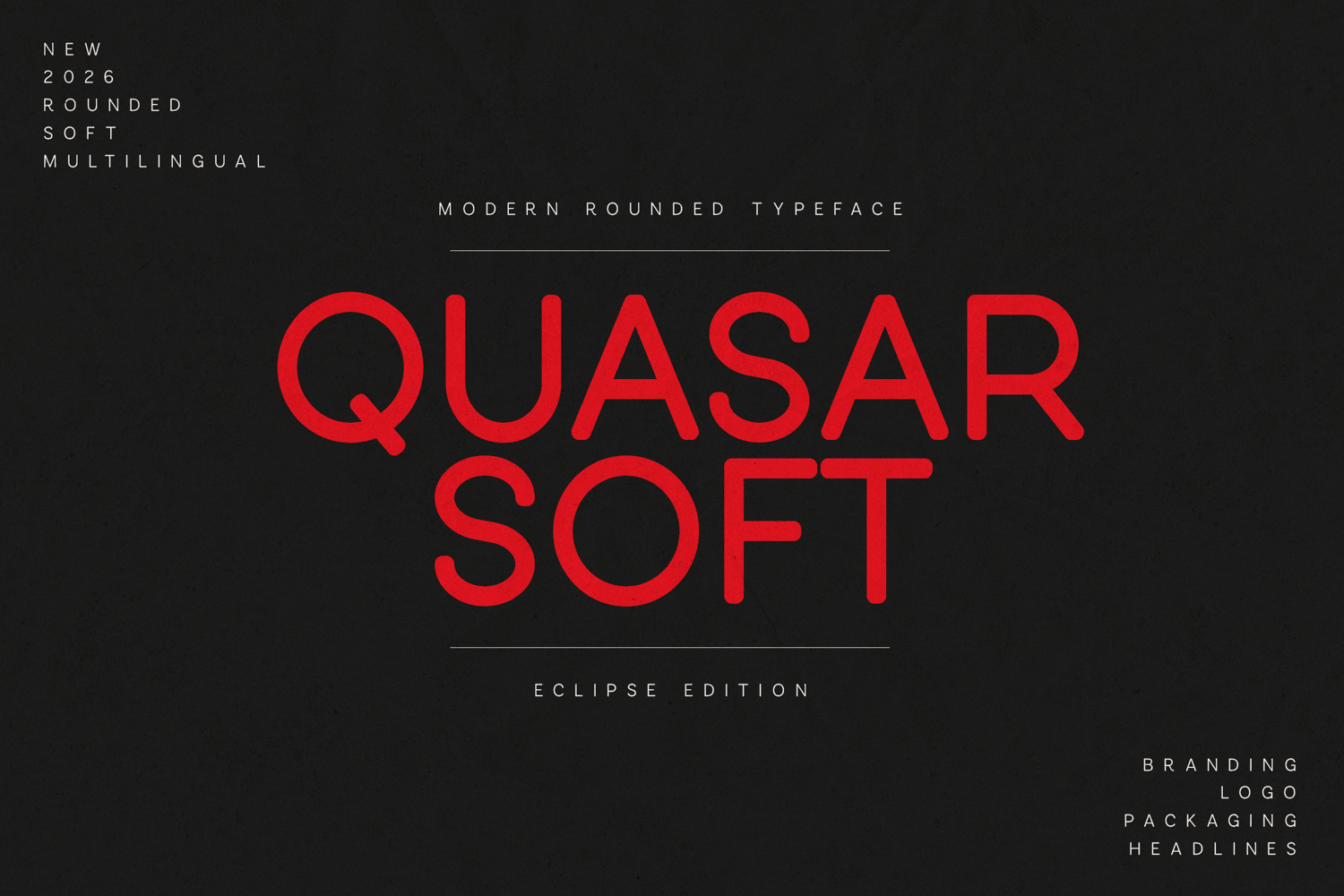
Quasar Soft Modern Rounded Sans Serif Font
Quasar Soft is a modern rounded sans serif typeface designed with smooth curves, balanced geometry, and a clean contemporary aesthetic. The rounded terminals give the font a friendly and approachable character while maintaining a strong and professional structure.
The design blends modern minimalism with soft edges, making Quasar Soft highly versatile across branding, editorial layouts, packaging, and digital design. Its smooth letterforms create excellent readability and visual harmony, allowing it to perform beautifully in both headlines and large display compositions.
Quasar Soft is ideal for designers who want a modern sans serif with personality—clean enough for professional branding, yet soft enough for creative and lifestyle projects.
The typeface includes uppercase and lowercase characters, numbers, punctuation, and extended multilingual support, making it suitable for international projects and modern visual identities.
Perfect for• Branding and logos
• Packaging design
• Editorial layouts
• Headlines and posters
• Website typography
• Social media graphics
• Modern visual identities
• Creative design projects
Quasar Soft combines modern typography with soft rounded forms, creating a balanced and highly usable font for contemporary design work.